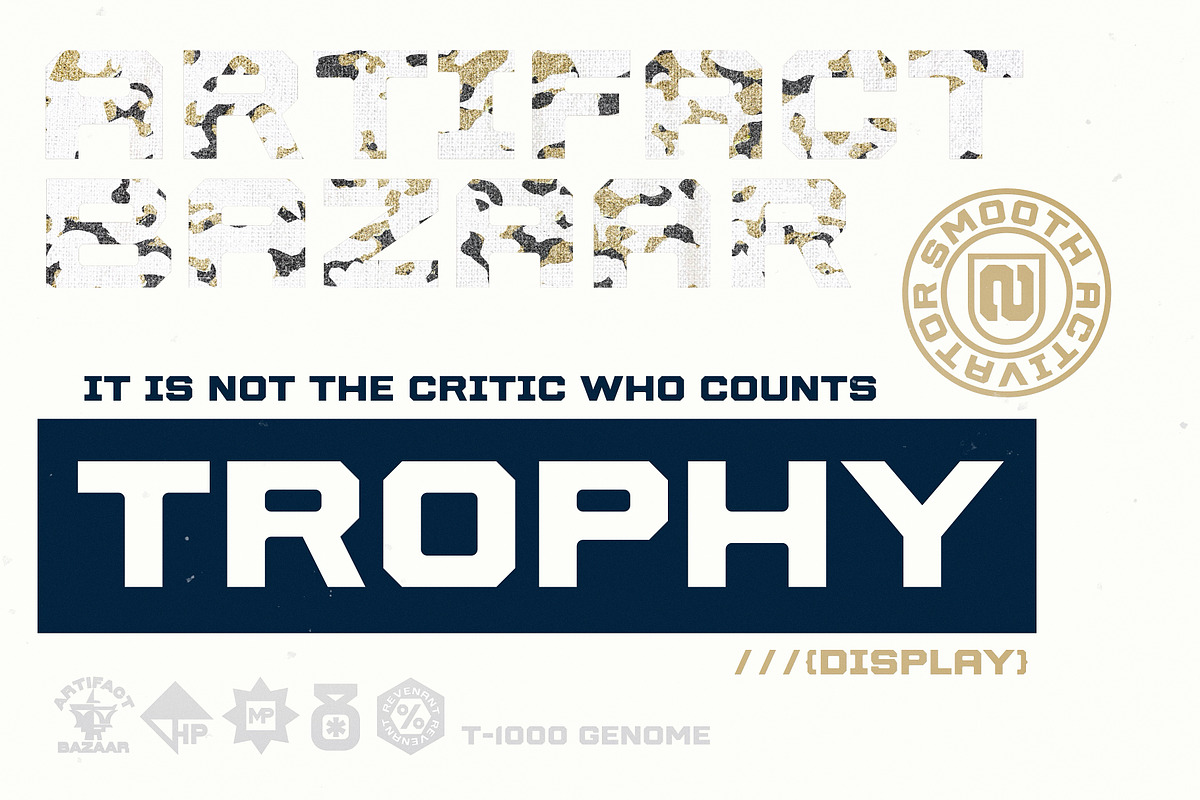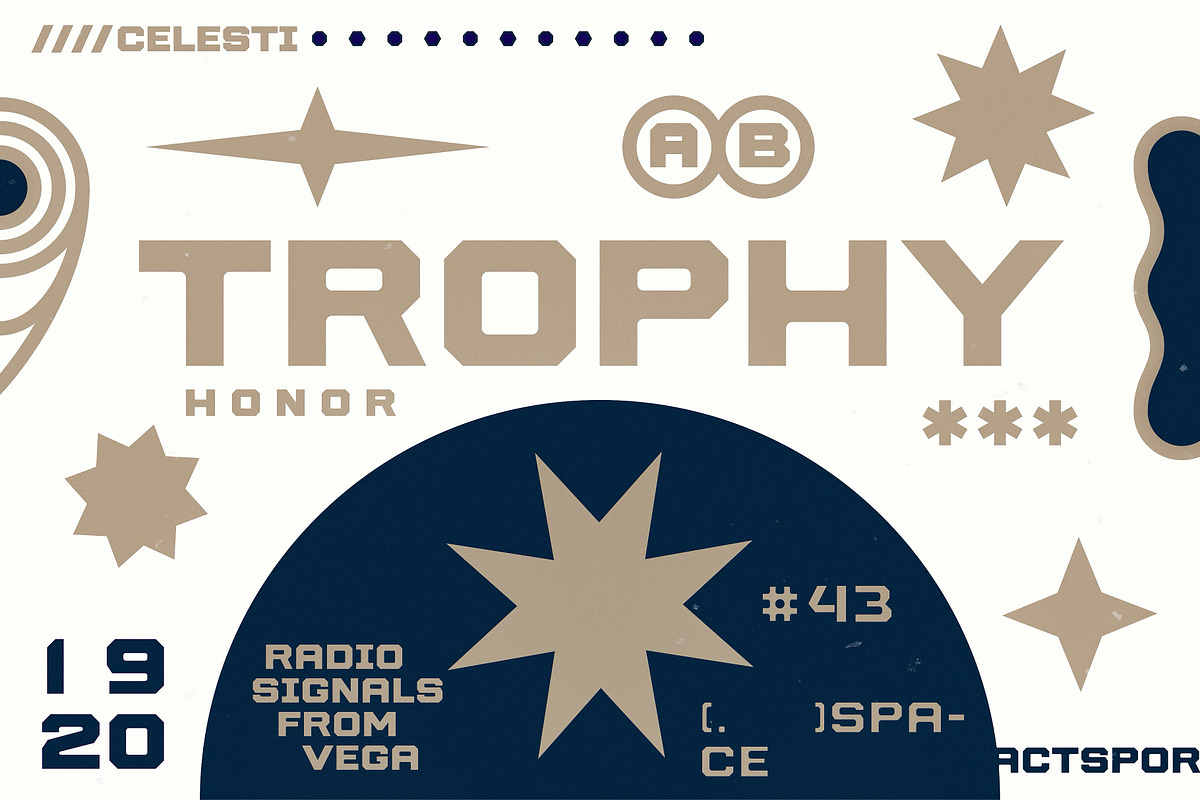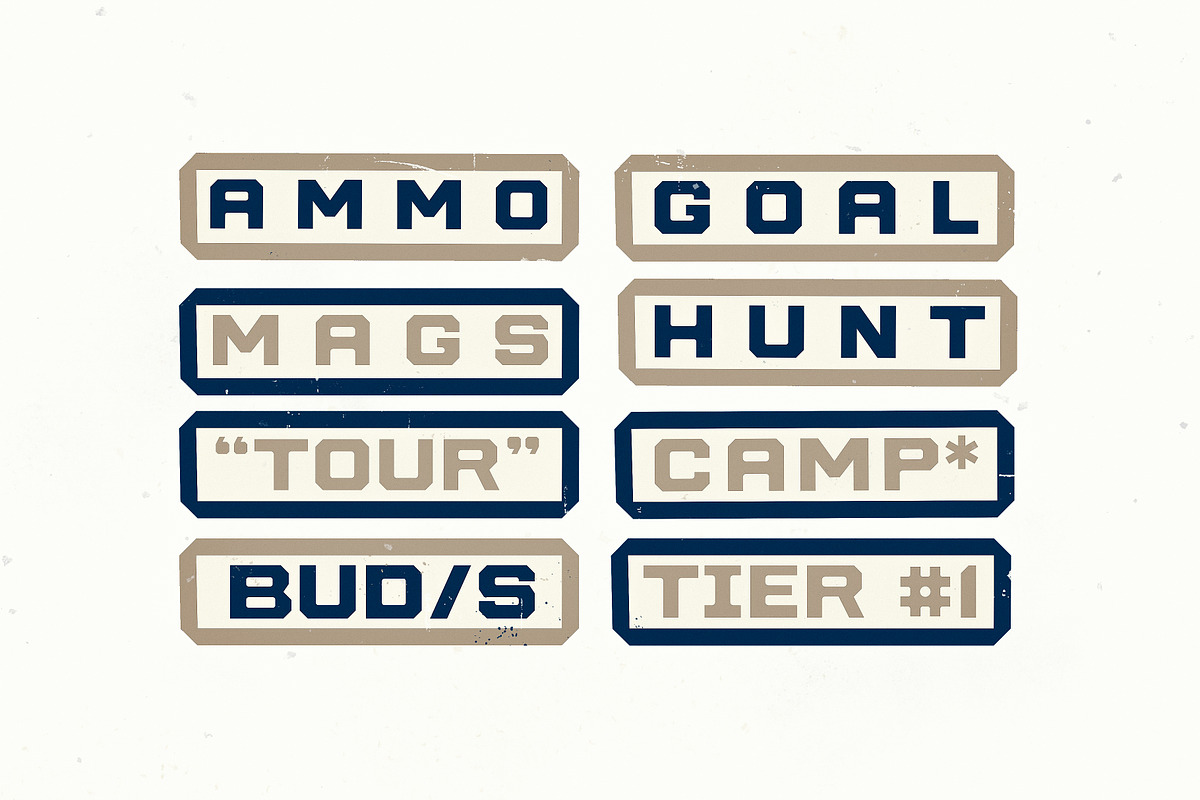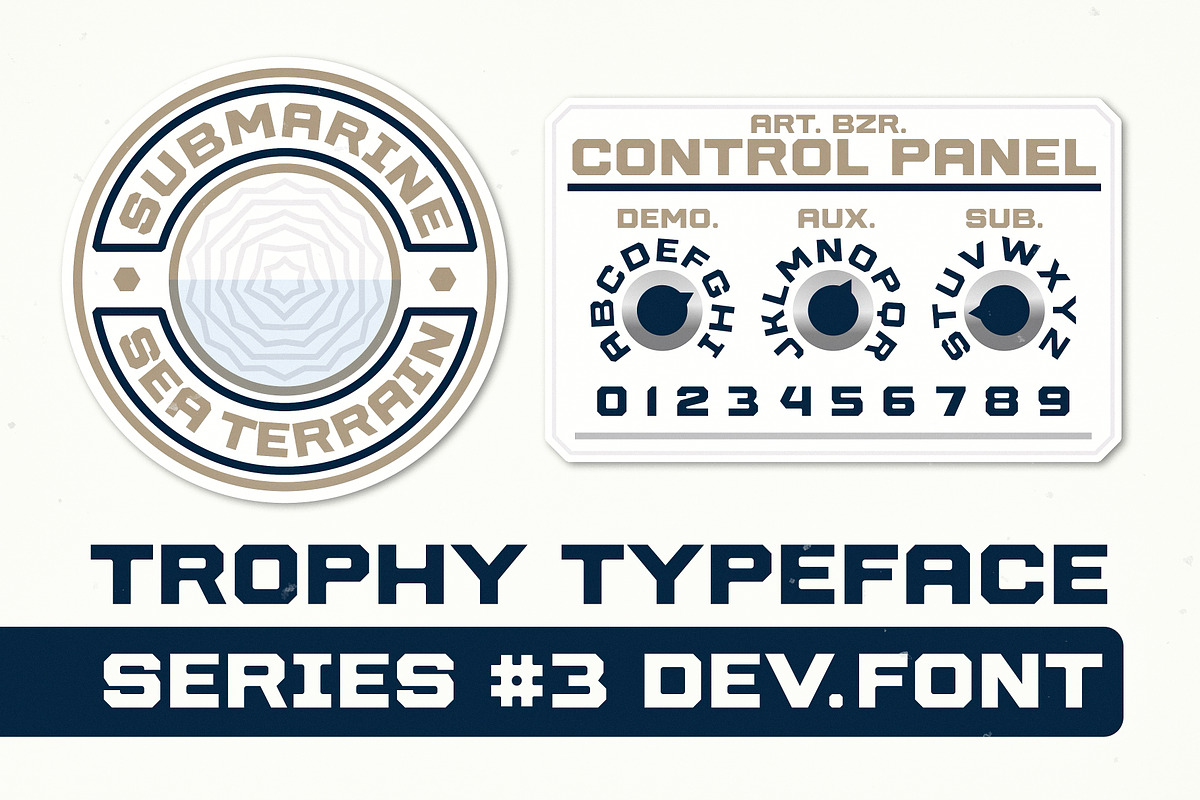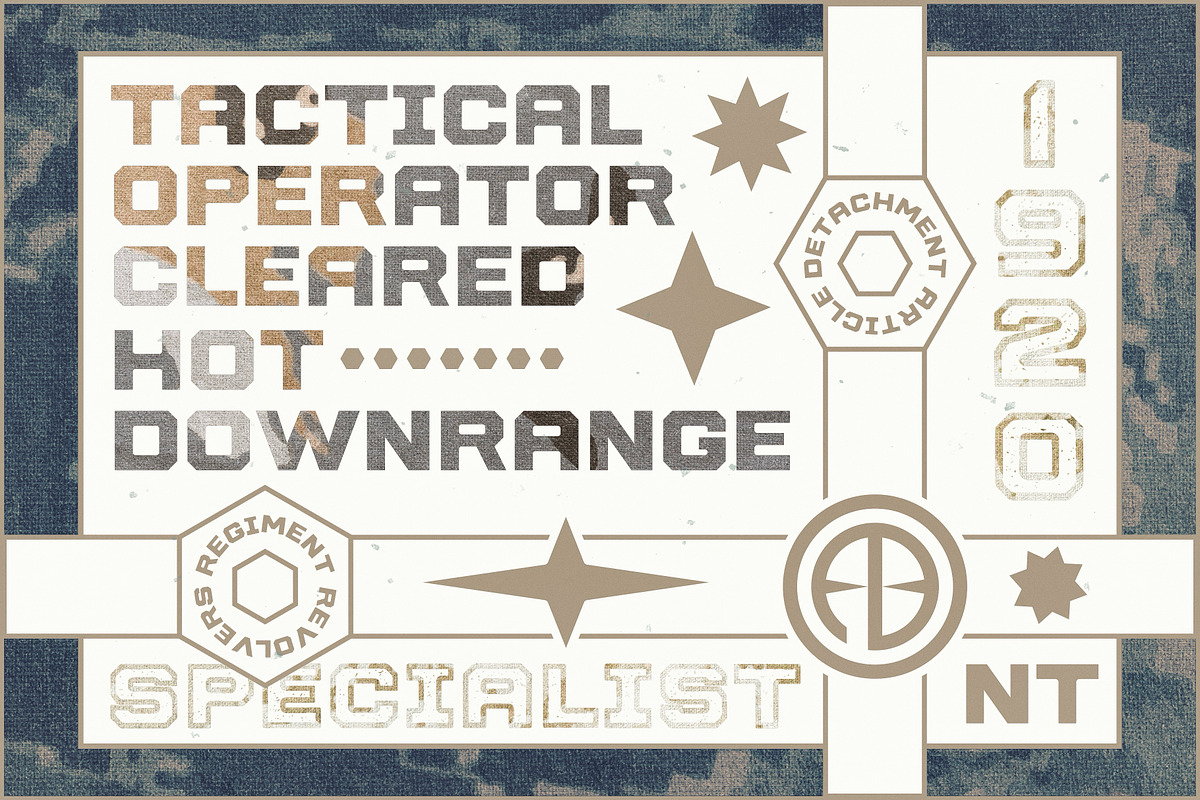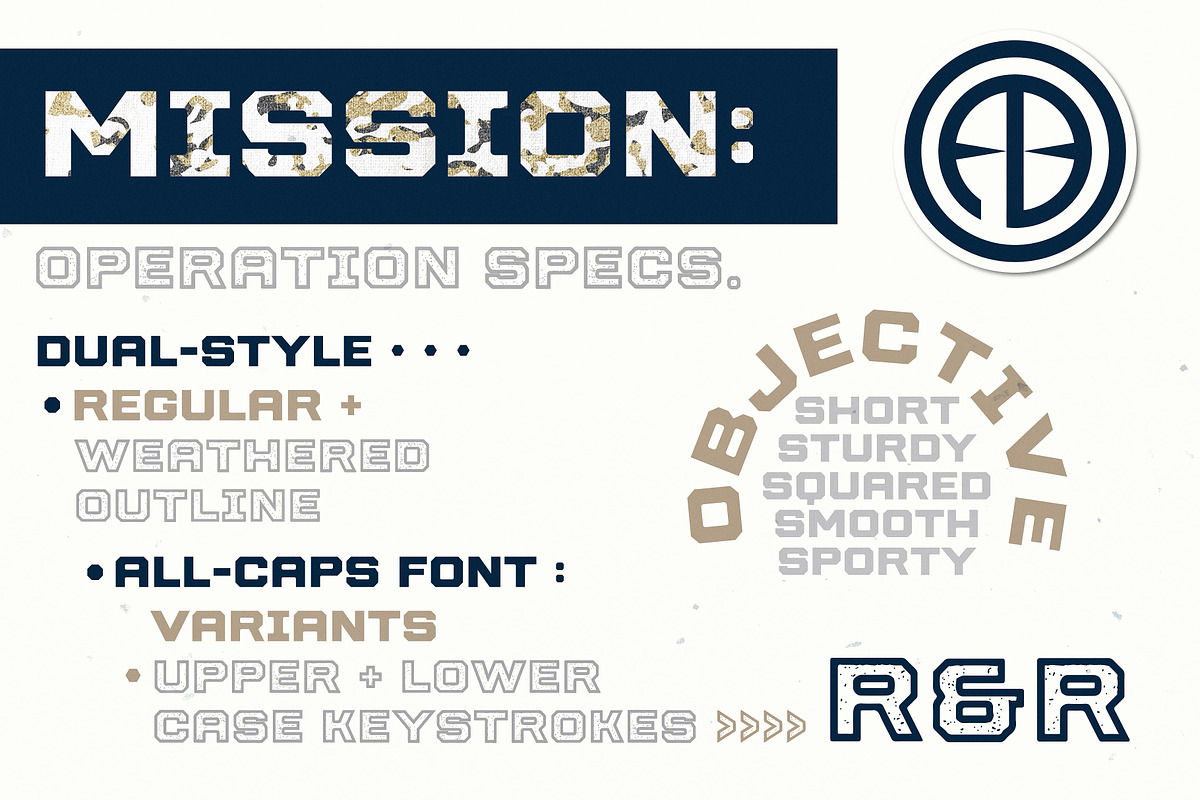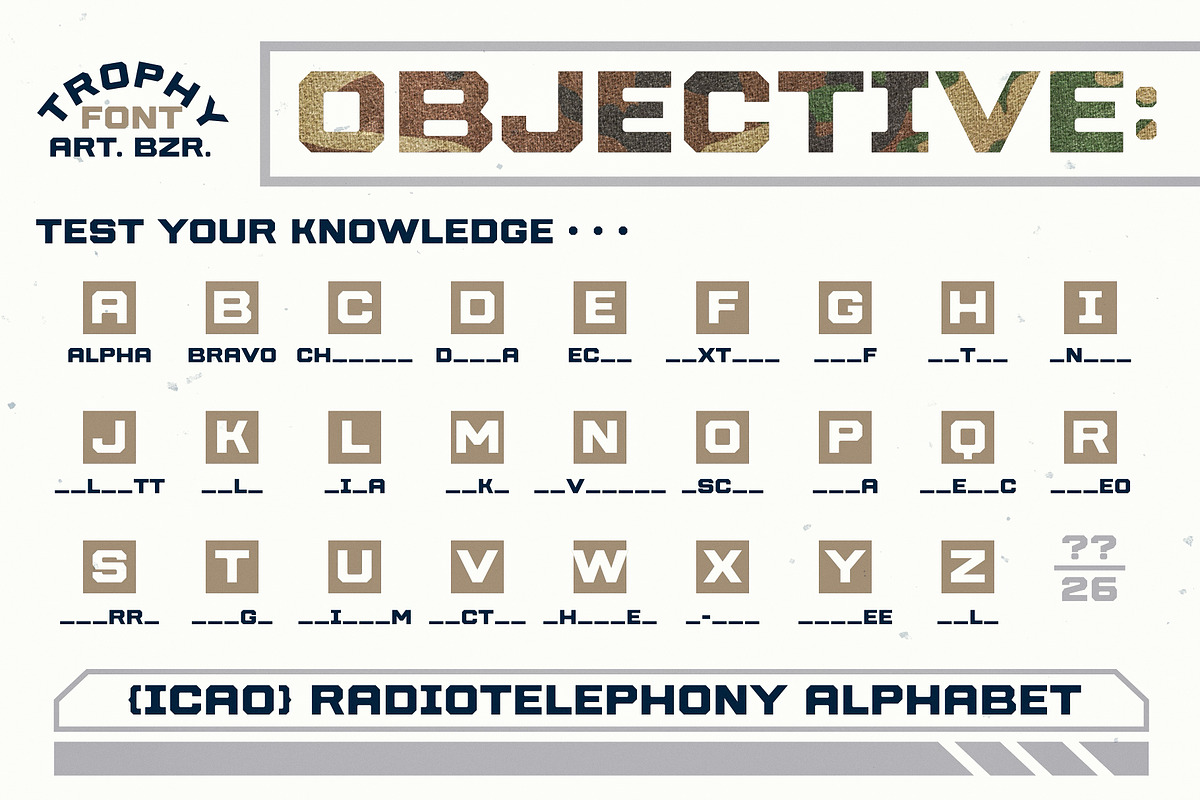
Trophy | Bold Athletic
Type Objective: short, sturdy, squared, smooth, sporty. If that’s what you’re looking for, then grab that Trophy!
- 2 Styles
- Texture Variations in CAPS
- All punctuation and special characters